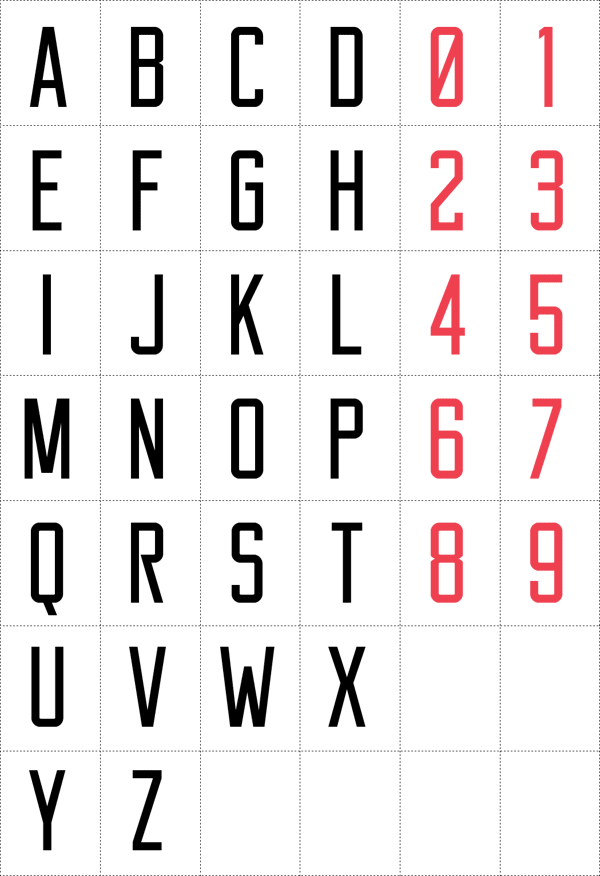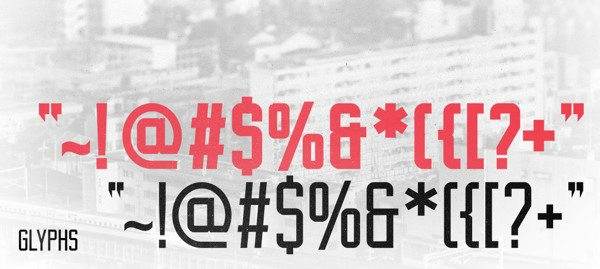
Free Font Of The Day #188 – Reckoner Font
Reckoner Font is a free for commercial/personal use typeface that features a secondary set of characters in the lowercase setting that can be placed in your designs to add a unique touch to certain words.
Reckoner is currently available in 2 weights (for now). This typeface is ideal for logotypes & headings, and is available for you to download right now.